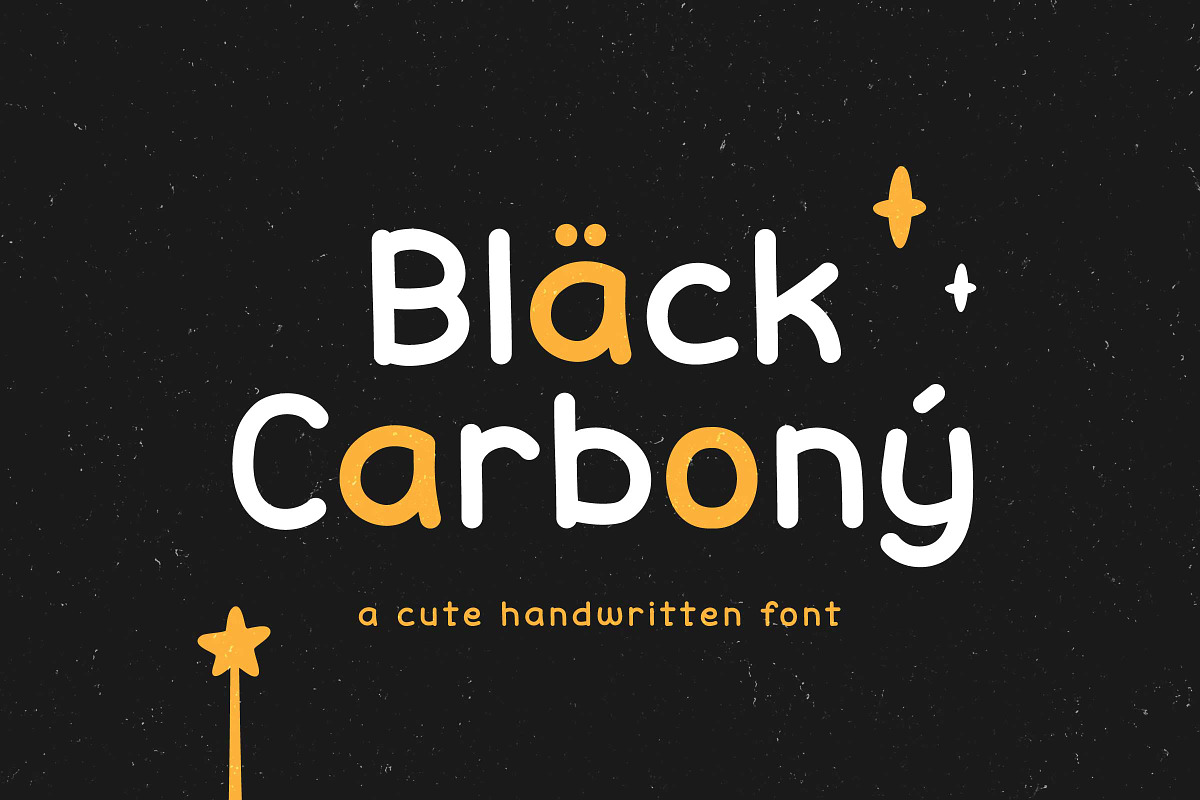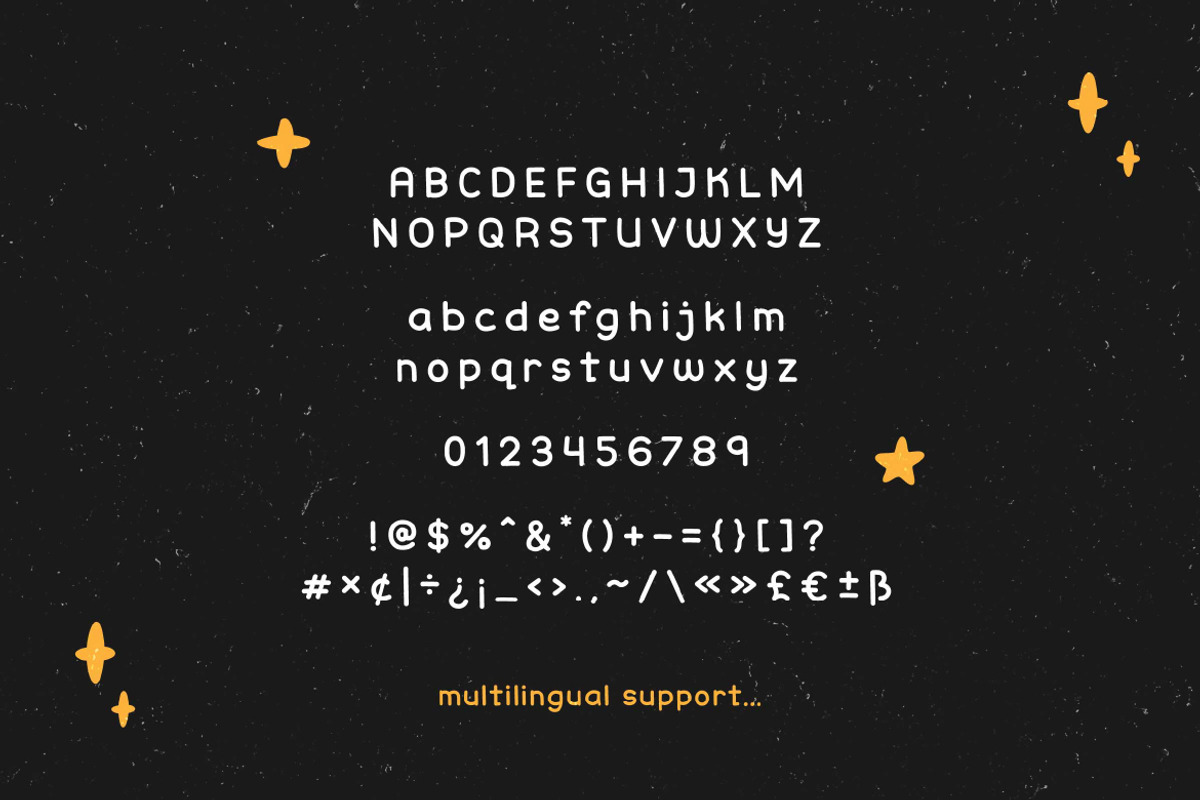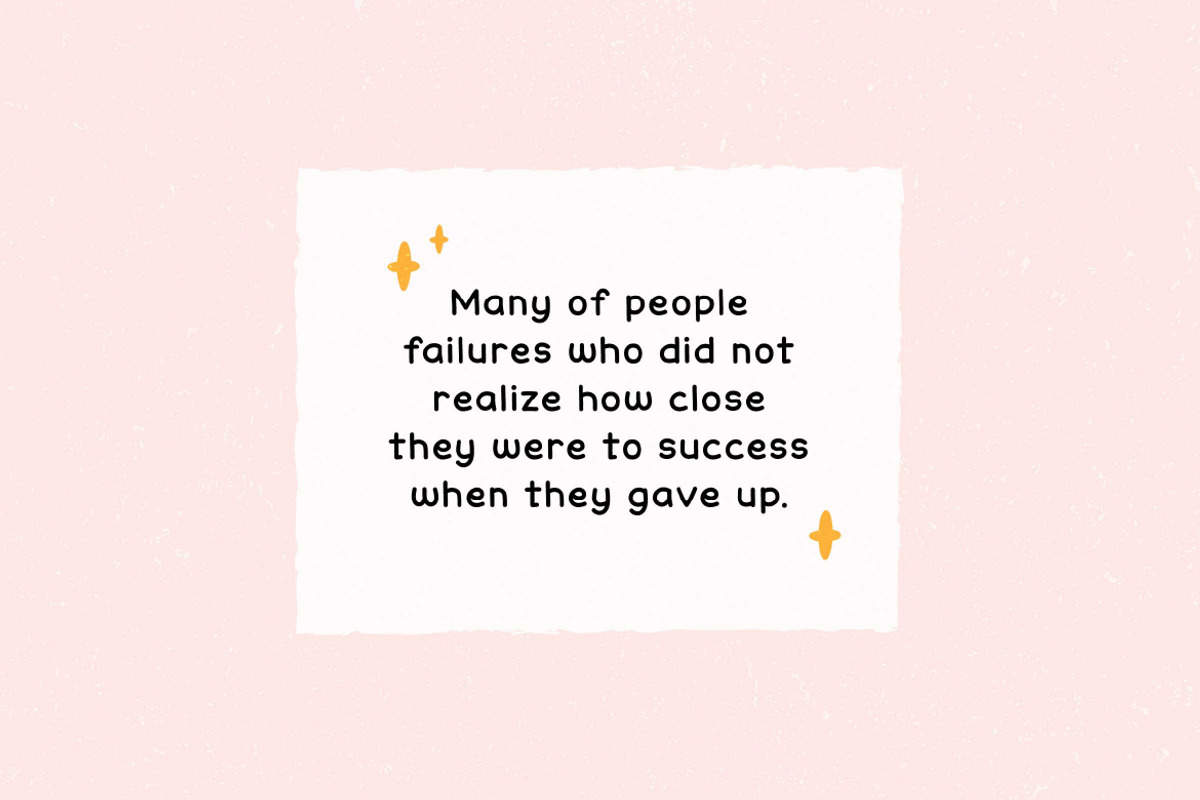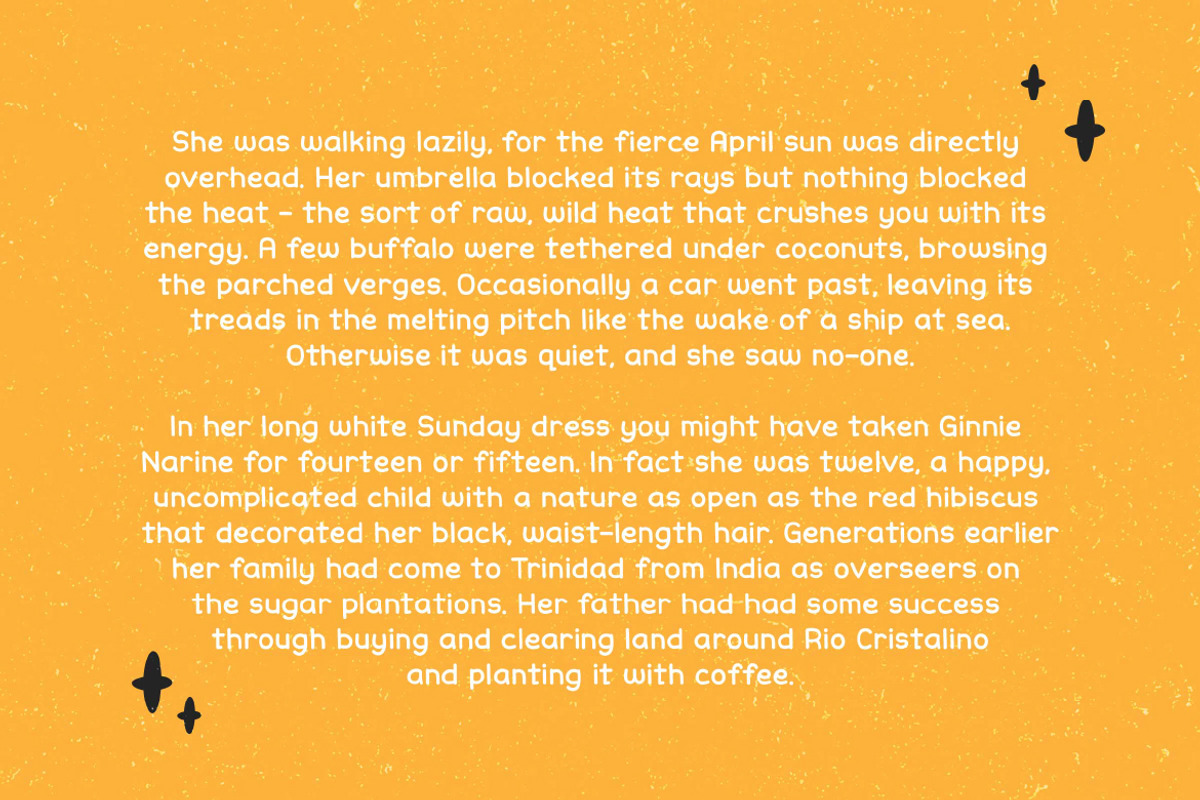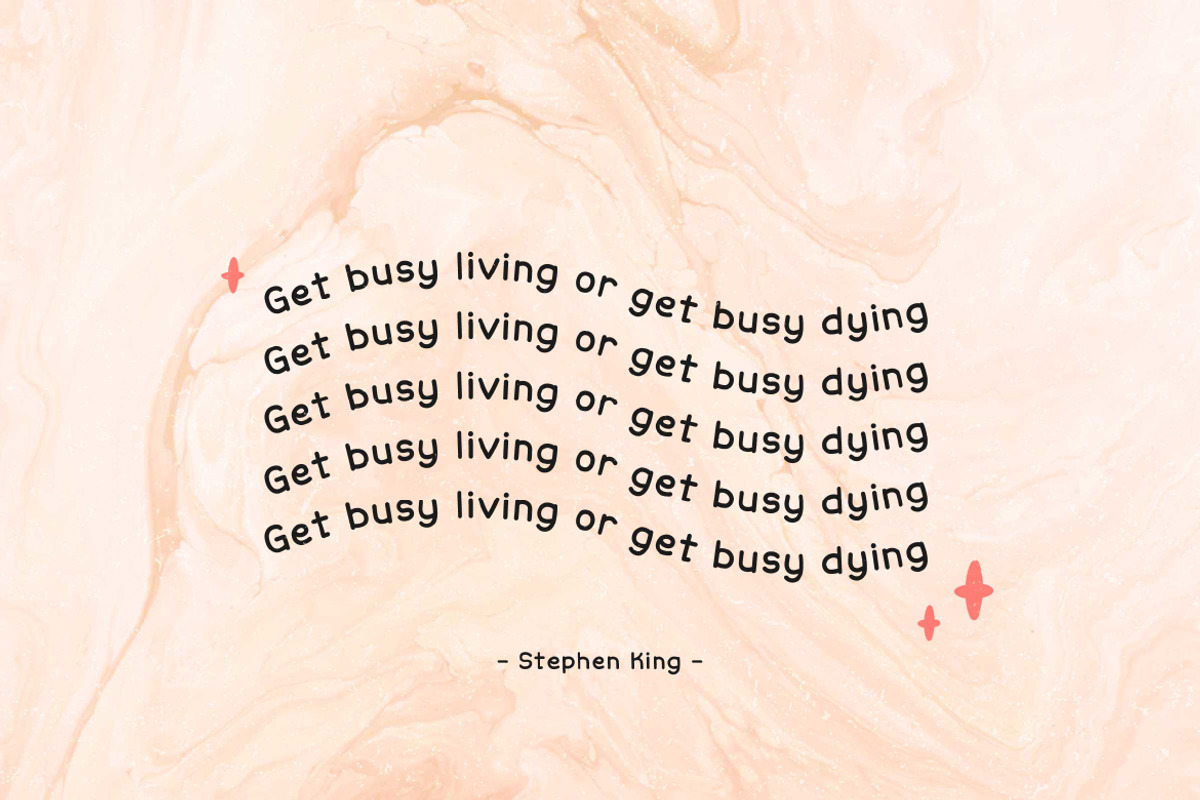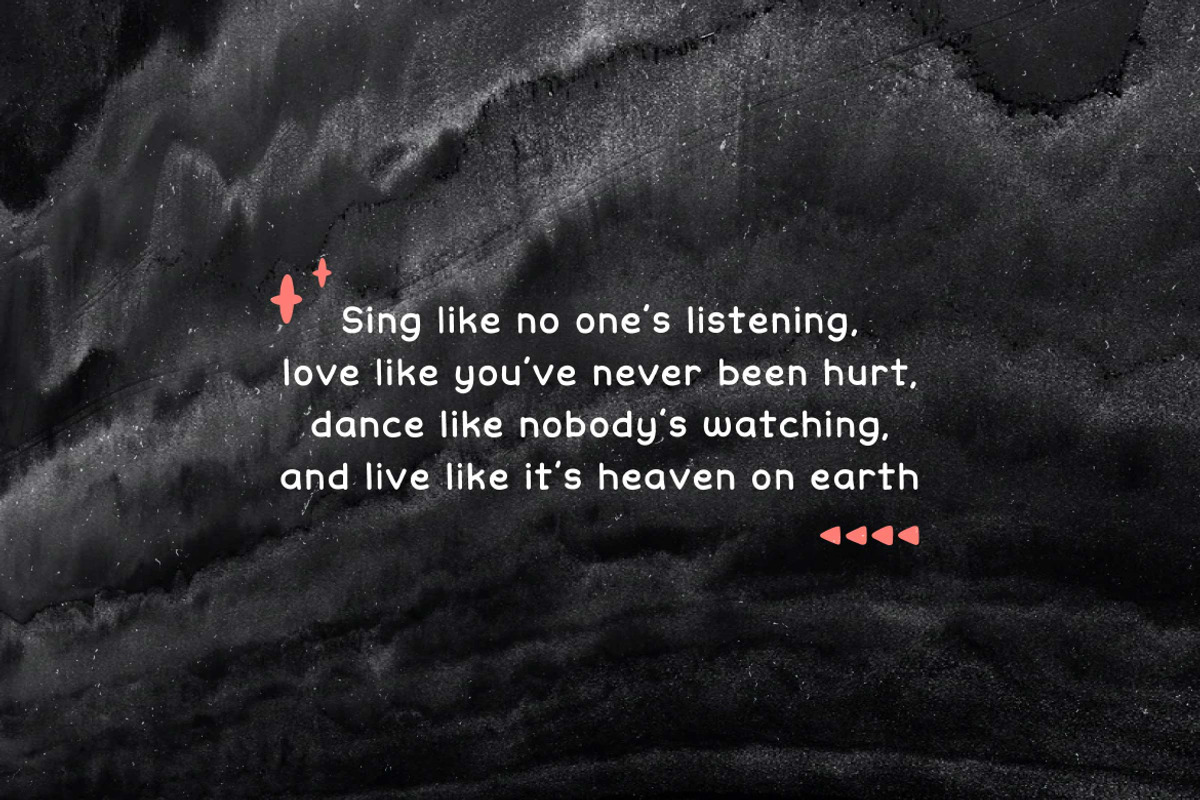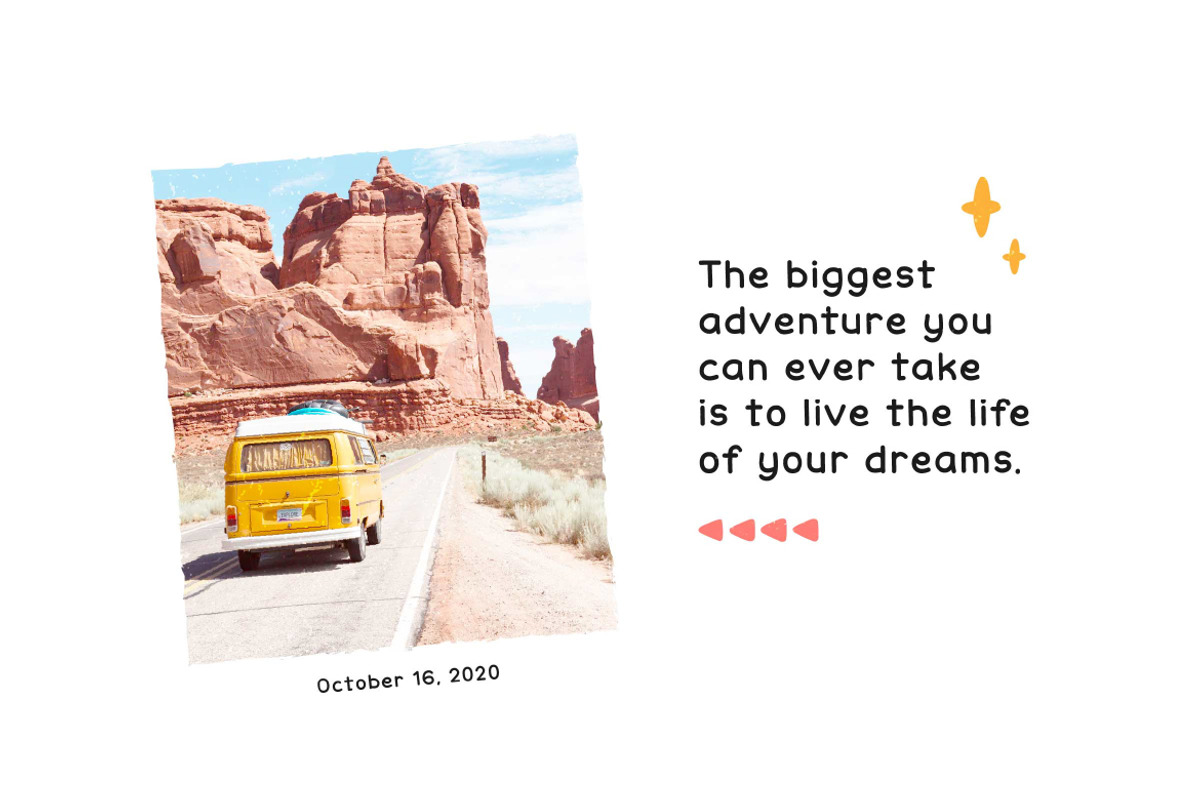
Black Carbony
Black Carbony is a cute and simple hand-lettered bubbly sans serif font. This font is very simple and fun to use! Black Carbony is perfect for create a quotes, logo, badge, insignia, packaging, headline, poster, t-shirt/apparel, greeting card, party invitations, baby showers, birthday cards and more. This font awesome for kids and school and support multilingual language.